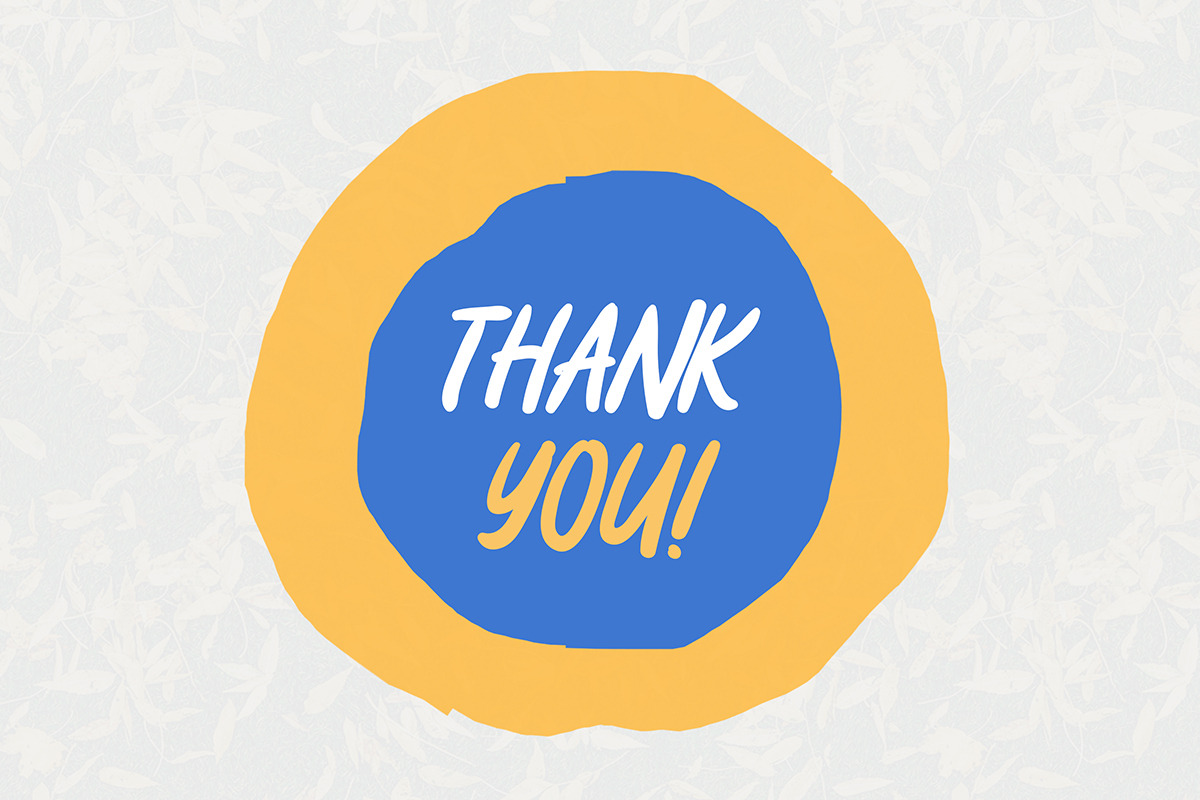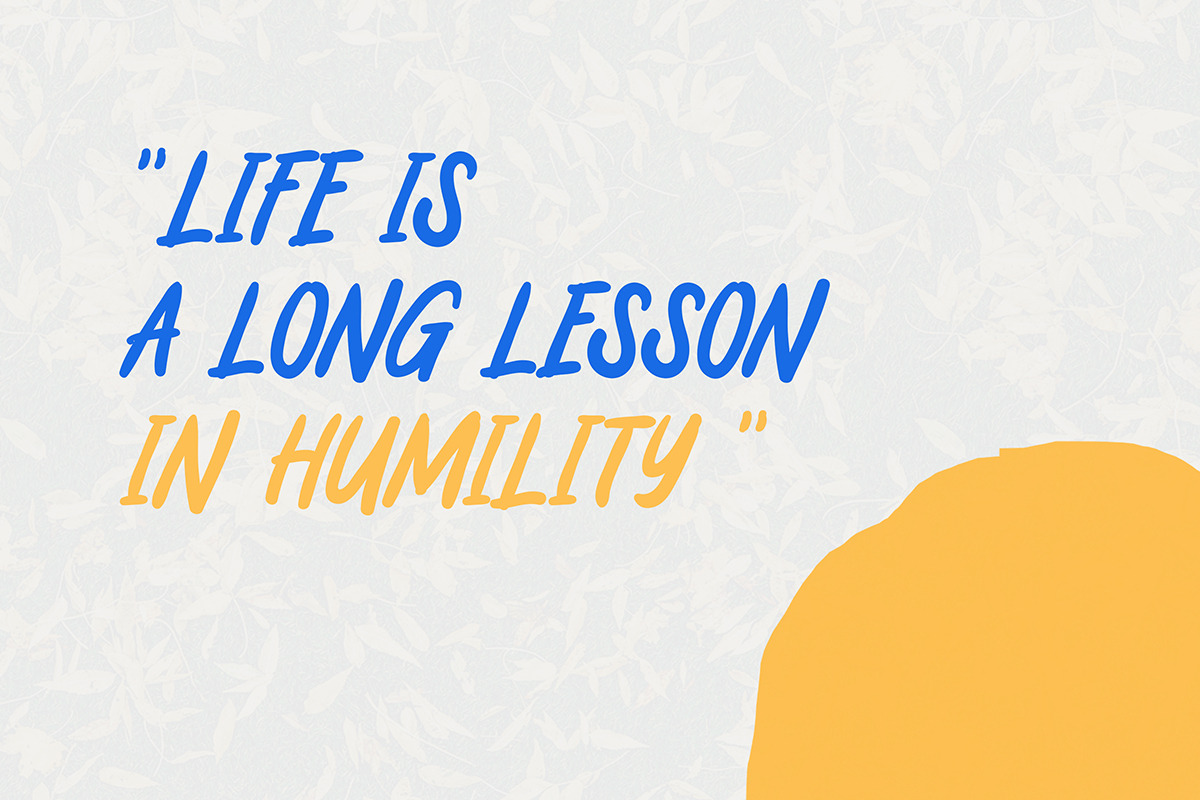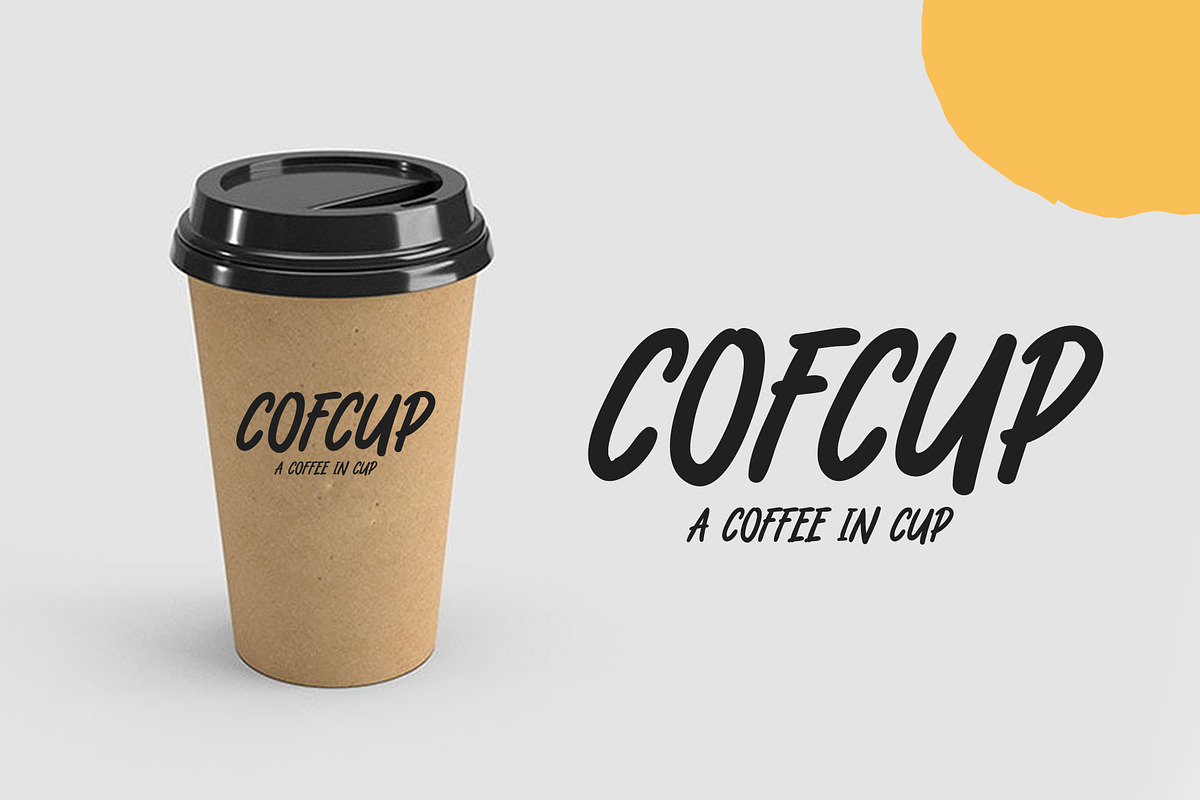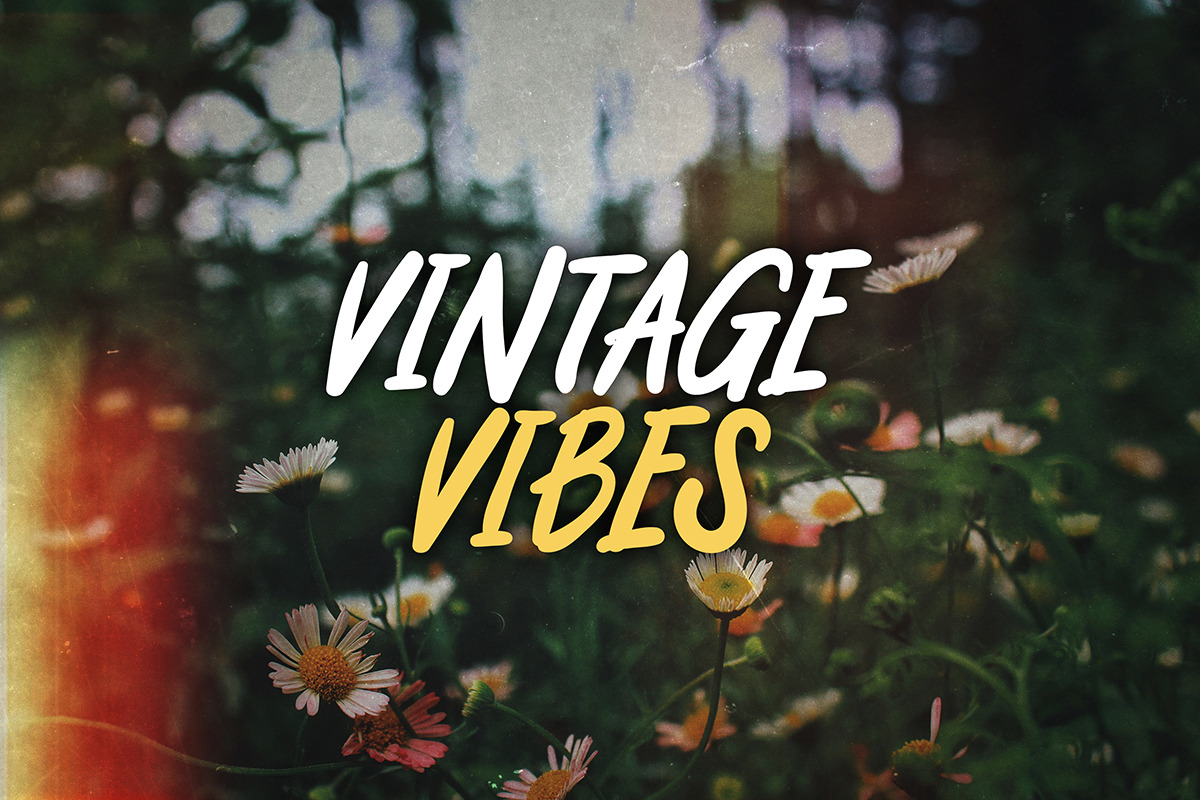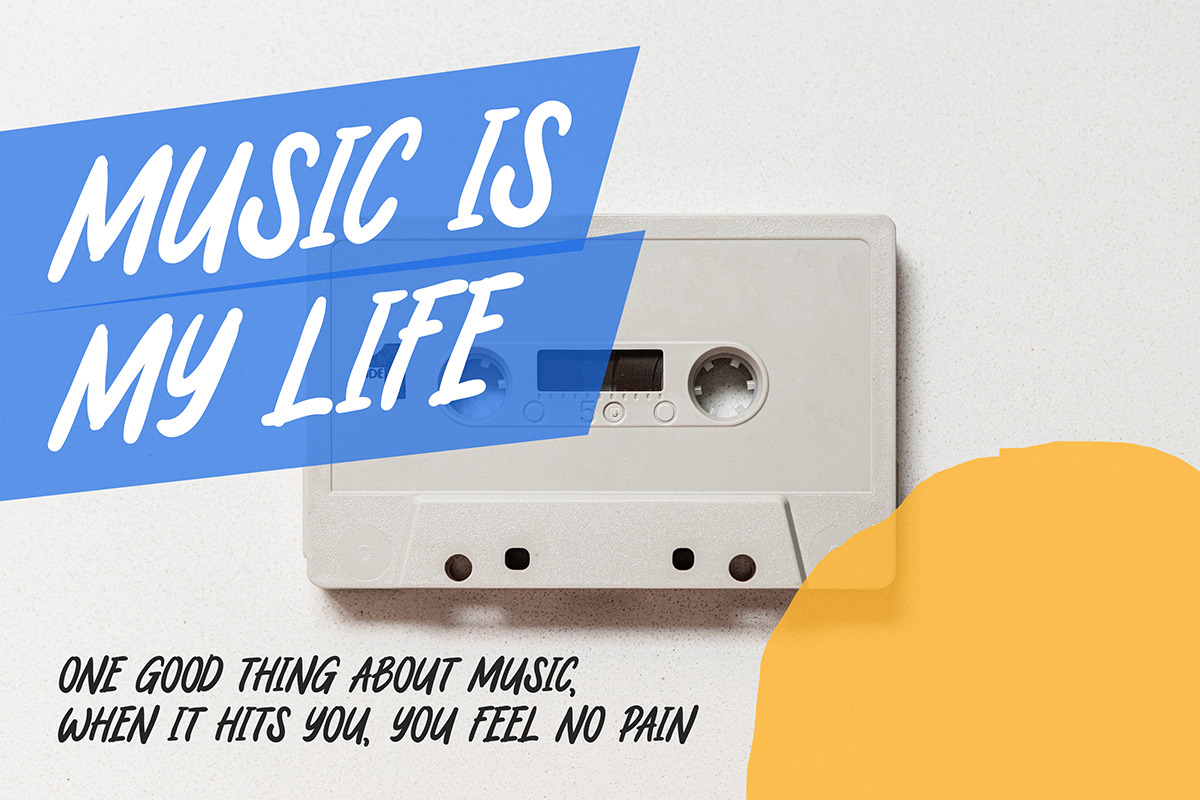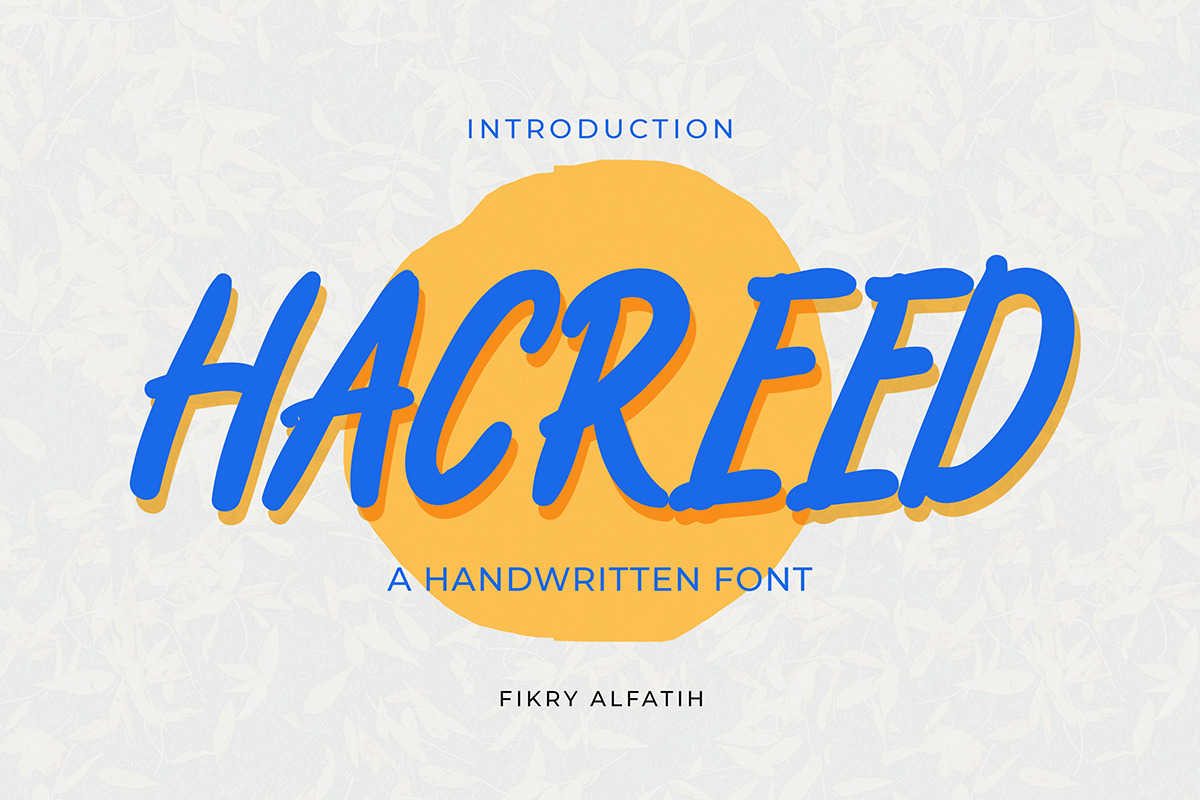
Hacreed - Handwritten Font
Hacreed is a font inspired by the hand-painted signs typically seen in stores. This font is perfect for vintage and contemporary marketing, branding, merchandising, and packaging design.